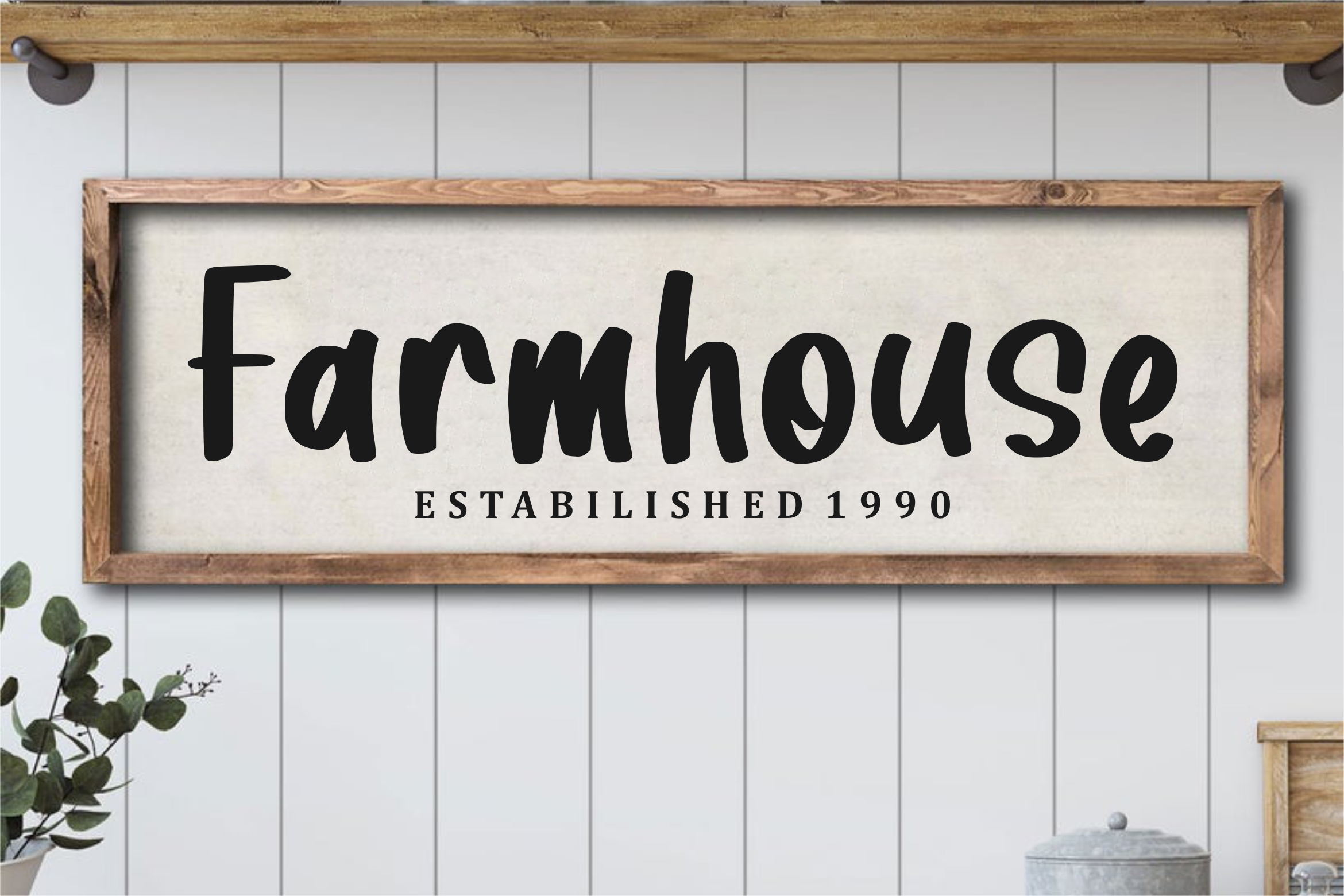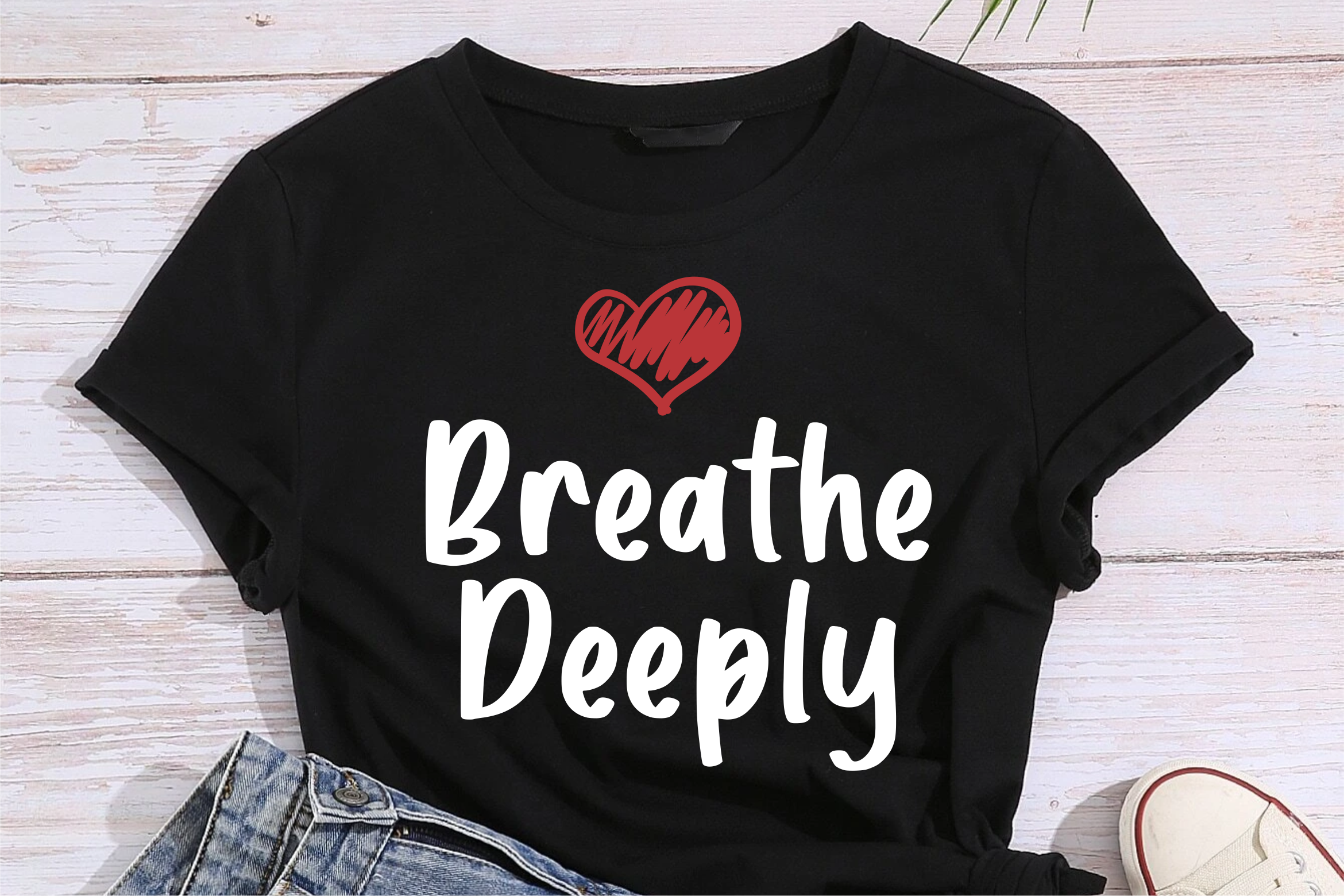
Sprinkle Delicious Font
Sprinkle Delicious Script Font
This is a Display Handwritten Font. Sprinkle Delicious is perfect for product packaging, branding project, megazine, social media, wedding, or just used to express words above the background.